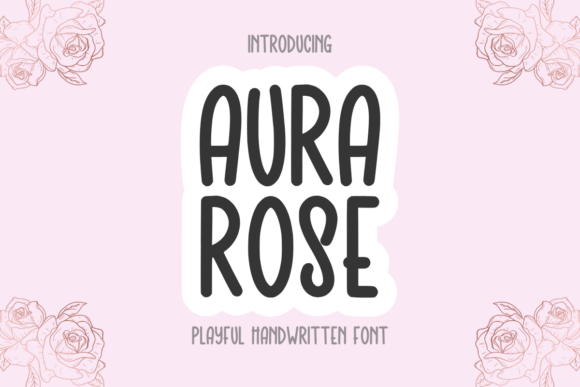
The Quest for the Perfect Font: Discovering Aura Rose
I’ll never forget the time I was working on a craft project, pouring my heart and soul into designing the perfect planner stickers. The design was almost complete, but something was off – the font just didn’t feel right. I scrolled through my font library, but nothing seemed to match the playful, friendly vibe I was going for. That’s when I stumbled upon Aura Rose, a beautiful handwritten font that instantly captured the essence of my project. In this article, I’ll share my experience with Aura Rose, its features, and how to make the most of this amazing font.
Aura Rose: A Playful Handwritten Font
Aura Rose is a delightful handwritten font perfect for various creative projects, including crafts, planners, KDP, stickers, greeting cards, and more. Its cute and friendly style makes it an excellent choice for Cricut, sublimation, and DIY projects. Whether you’re a crafter, designer, or maker, Aura Rose is sure to become a favorite in your font collection.
Here’s my honest review of Aura Rose:
- ✨ Playful and friendly style: Aura Rose has a unique, hand-crafted feel that’s perfect for creative projects.
- ✅ Highly versatile: This font works well for various applications, from planners and stickers to greeting cards and more.
- 💕 Easy to read: Despite its playful nature, Aura Rose remains clear and easy to read, even at smaller sizes.
As for quirks or limitations:
- 🤔 Limited formal use: Aura Rose is a highly informal font, so it might not be suitable for formal projects or professional designs.
- ⚠️ Some letters may require adjustment: Depending on the word or phrase, some letters might need adjusting to ensure proper spacing and alignment.
The Story Behind Aura Rose
Aura Rose was designed with the intention of creating a friendly, approachable font for crafters and designers. The designer aimed to create a font that felt like a warm hug – something that would make readers feel happy and uplifted. With its playful style and highly legible letters, Aura Rose has become a favorite among creatives.
| What type of projects is Aura Rose best suited for? | Aura Rose is perfect for crafts, planners, KDP, stickers, greeting cards, and more. Its friendly style works well for creative DIY projects and casual designs. |
| Does Aura Rose support OpenType features? | Yes, Aura Rose supports OpenType features, including glyphs and stylistic alternates. Experiment with these features to add more personality to your designs. |